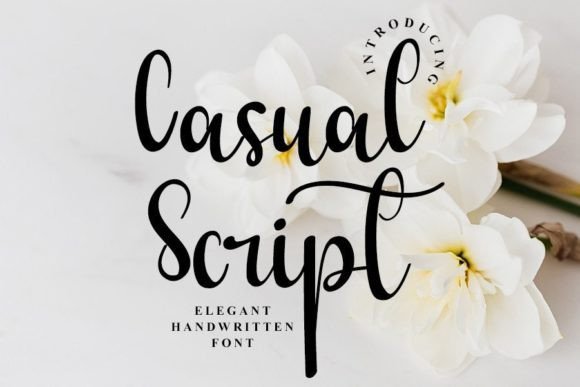
The Perfect Blend of Classic and Modern: Casual Script Font
You know that moment when you’re brainstorming a new project, and suddenly, a spark of inspiration hits you? The words start flowing, and you can envision the entire design coming together in your mind’s eye. That’s exactly what happened when the designers behind Casual Script Font set out to create a truly unique and engaging typeface.
Casual Script Font is more than just a pretty face – it’s a carefully crafted tool designed to add a touch of personality to any project. With its classy calligraphic influences and contemporary feel, this font is the perfect blend of classic and modern. Whether you’re working on a branding project, a social media campaign, or a website, Casual Script Font is sure to bring a fresh and friendly vibe to your design.
For designers, Casual Script Font is a valuable addition to any toolkit. Its versatility and unique character make it an excellent choice for a wide range of applications, from logos and business cards to wedding invitations and packaging design. With Casual Script Font, you can add a touch of elegance and sophistication to your work, while still feeling contemporary and on-trend.
Casual Script Font Key Features
- Font Style: Casual, Script, Handwritten – This font is designed to resemble handwritten text, perfect for creating a friendly and approachable atmosphere.
- Unique Characteristics: Irregular letterforms, organic feel, and subtle flair – These distinctive features make the Casual Script Font stand out and add a touch of personality to your designs.
Casual Script Font Review
Overall, I think the Casual Script Font is a nice addition to any designer’s toolkit. ✨ It’s perfect for adding a touch of personality to a project without going overboard. The font is incredibly versatile and can be used for a wide range of applications, from advertising to wedding invitations.
The Casual Script Font has a very organic feel to it, making it ideal for projects that require a more relaxed and casual tone. ✨ It’s also surprisingly legible, even at smaller font sizes. The font’s subtle imperfections only add to its charm, giving it a hand-written feel that’s hard to replicate with other fonts.
- ⚠️ Limited character set: While the font is great for casual projects, it may not be the best choice for longer blocks of text. The limited character set can make it difficult to read large amounts of text.
- ⚠️ May not be suitable for formal projects: Due to its casual nature, the font may not be the best choice for formal projects or those that require a more professional tone.
Overall, I would recommend the Casual Script Font for designers who want to add a touch of personality to their projects. While it may have some limitations, it’s a great choice for casual projects and can be a valuable addition to any designer’s toolkit.
Tips for Getting the Most Out of Casual Script Font
Here are some tips to get the most out of Casual Script Font:
- Use it for titles, headings, and short paragraphs.
- Pair it with bold or italic fonts for contrast.
- Use it for invitations, quotes, and other creative projects.
Casual Script Font is commonly used for:
- Invitations and event announcements.
- Quotes and motivational posters
Alternatives to Casual Script Font
Carolyna Pro is a modern script font that is ideal for use in branding, advertising, and editorial content. It features elegant, flowing lines and a sophisticated feel.
Compared to Casual Script Font, Carolyna Pro has a more refined and polished look, making it suitable for high-end designs. While Casual Script Font is more playful and versatile, Carolyna Pro is better suited for formal and professional applications.